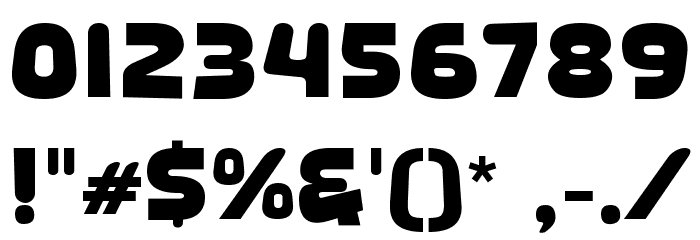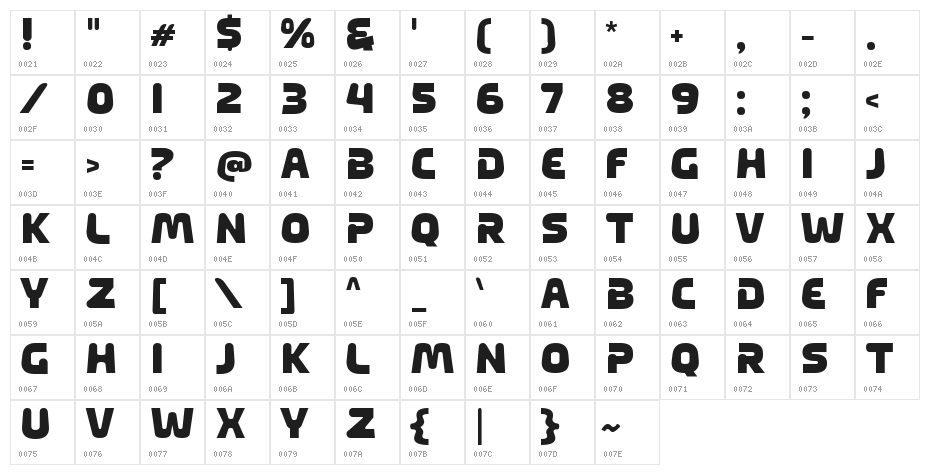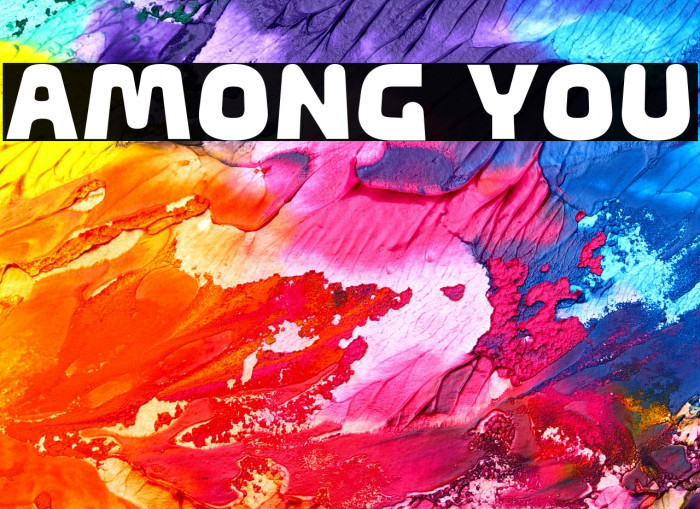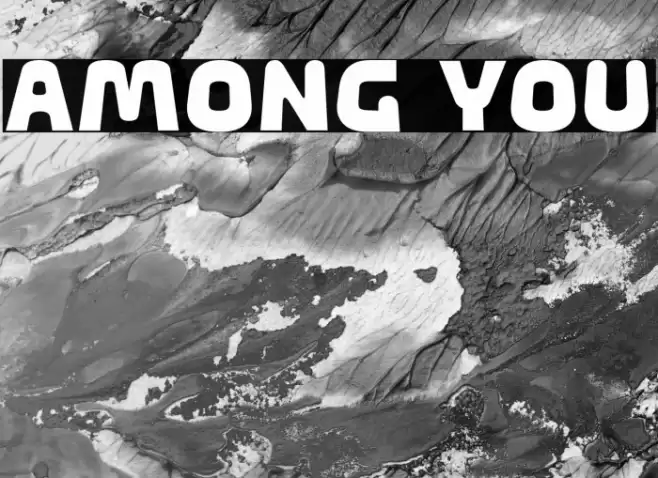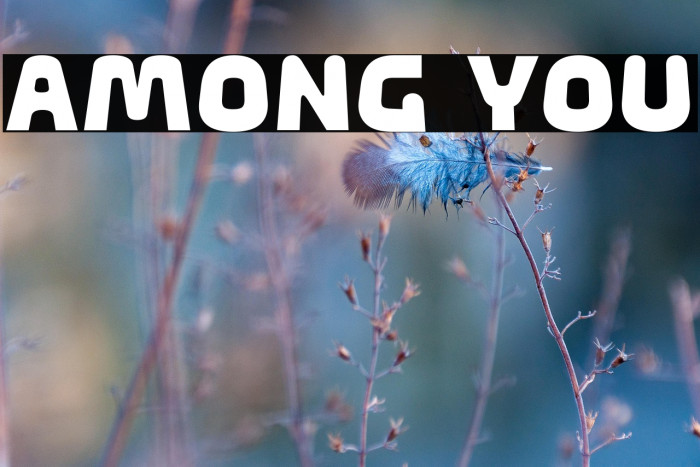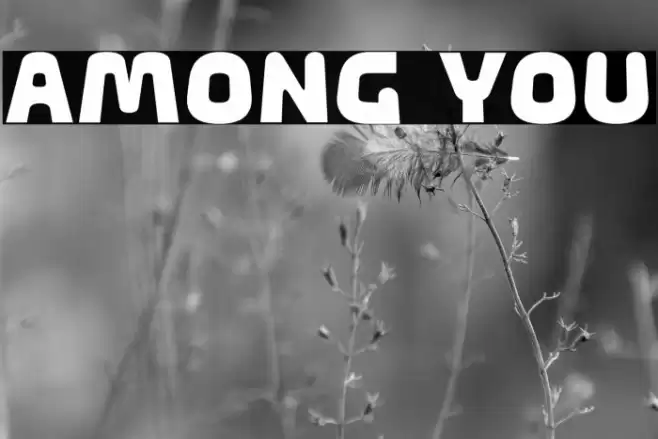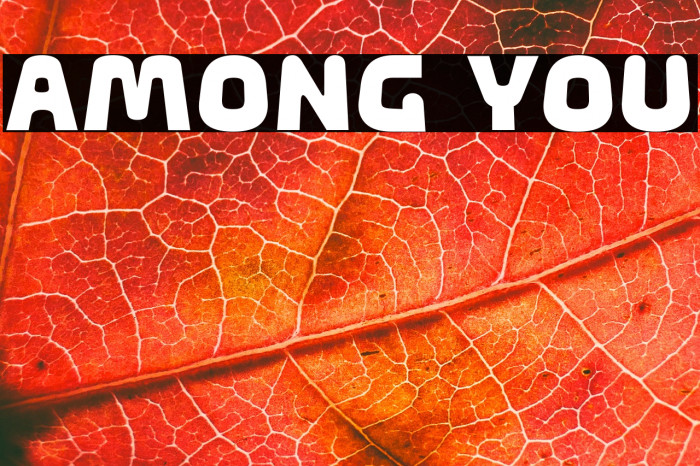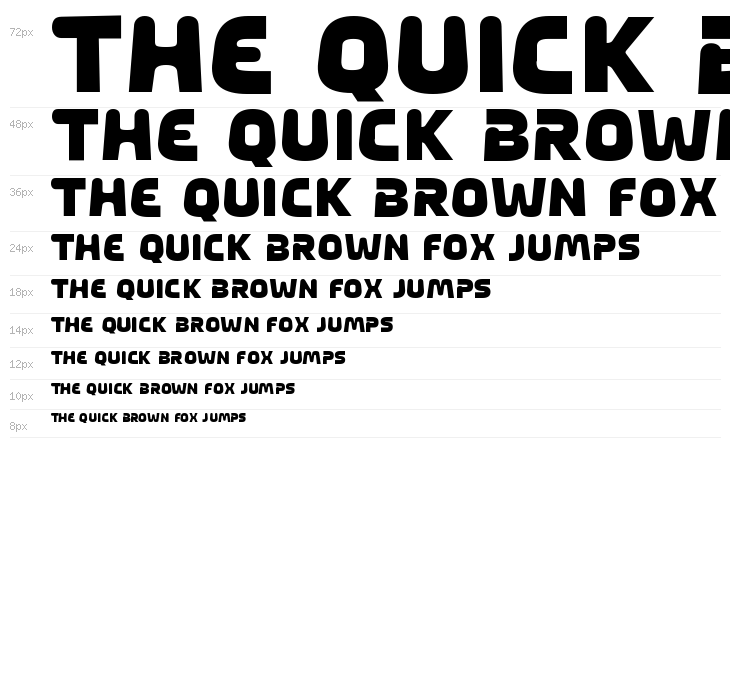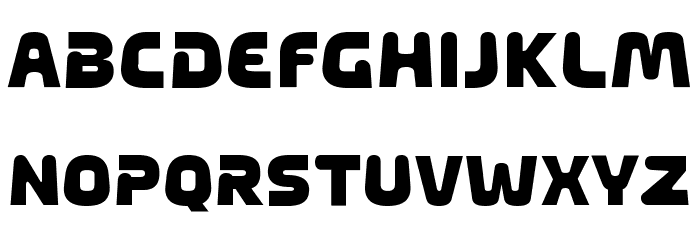
Among You Font
Among You Description
This font features a bold and playful design with rounded edges and a slightly condensed appearance. The characters are uniform in weight, providing a consistent and cohesive look. The uppercase and lowercase letters maintain a similar style, enhancing readability while adding a touch of modernity. The numerals and special characters follow the same design principles, ensuring a harmonious appearance across all text. The font's unique style makes it suitable for projects that require a fun and engaging aesthetic.